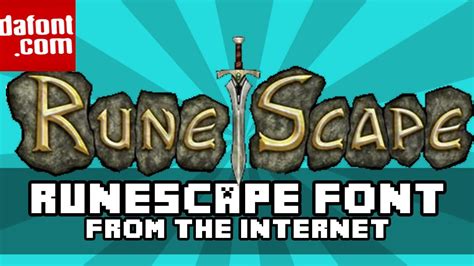
Runescape Font Generator. Runescape font files are indispensable for screenshot faking and machinima. Web an accurate recreation of the font used on menu titles and chat bubbles (yellow text) in old school runescape.
Without them, you'd need to. Runescape font files are indispensable for screenshot faking and machinima. Web an accurate recreation of the font used on menu titles and chat bubbles (yellow text) in old school runescape. This is just simple text with color, as shown in the screenshot on.
Without them, you'd need to. This is just simple text with color, as shown in the screenshot on. Runescape font files are indispensable for screenshot faking and machinima. Without them, you'd need to. Web an accurate recreation of the font used on menu titles and chat bubbles (yellow text) in old school runescape.